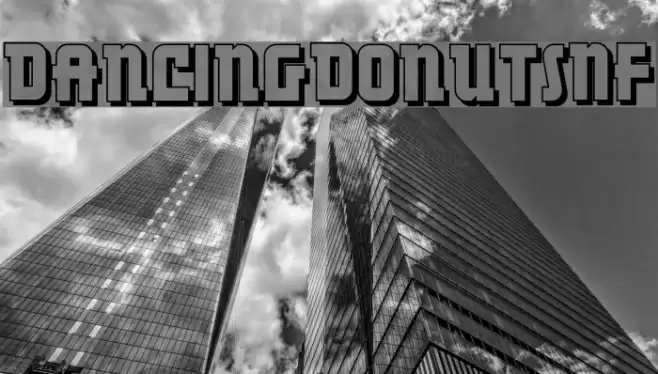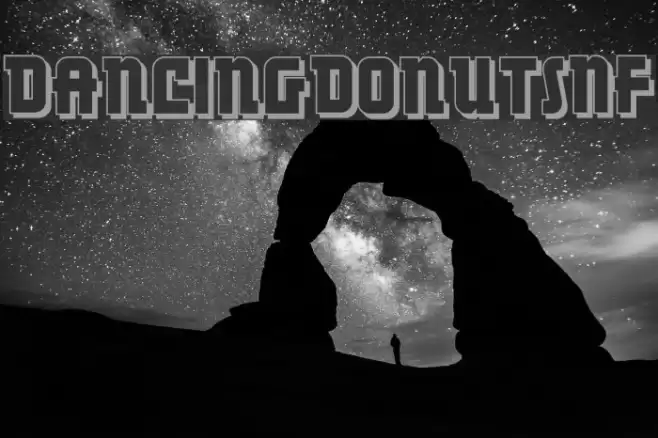
DancingDonutsNF Font
DancingDonutsNF Description
This font features a bold, playful design with a three-dimensional effect that gives it a unique and eye-catching appearance. The characters are blocky and geometric, with a shadow that adds depth and a sense of movement. The uppercase and lowercase letters maintain a consistent style, making it versatile for various uses. The numerals and special characters are designed to match the bold and dynamic feel, ensuring a cohesive look across all text elements. Its distinctive style makes it ideal for projects that require a fun and engaging visual impact.
| Proposed Projects | Perfect for posters, logos, video game graphics, and children's book covers. |